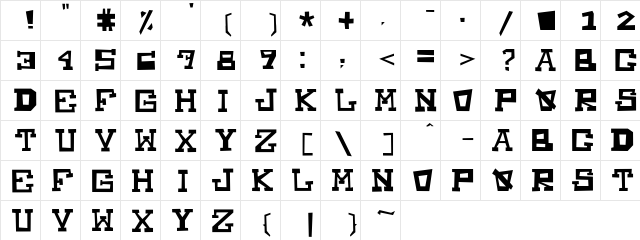
Mucho_Power Regular
Design Context for Mucho_Power Typeface
Mucho_Power brings high-energy athletic personality to the page — its confident, muscular forms are built for impact.
Built for sports team identities, athletic apparel, event posters, and high-energy promotional material.
Font Pairing: Use alongside a condensed or geometric sans for supporting copy — keep the pairing bold, functional, and free of ornament.
Pro Tip: Mucho_Power thrives on contrast — try it large, bold, and tight against a clean background for maximum visual impact.